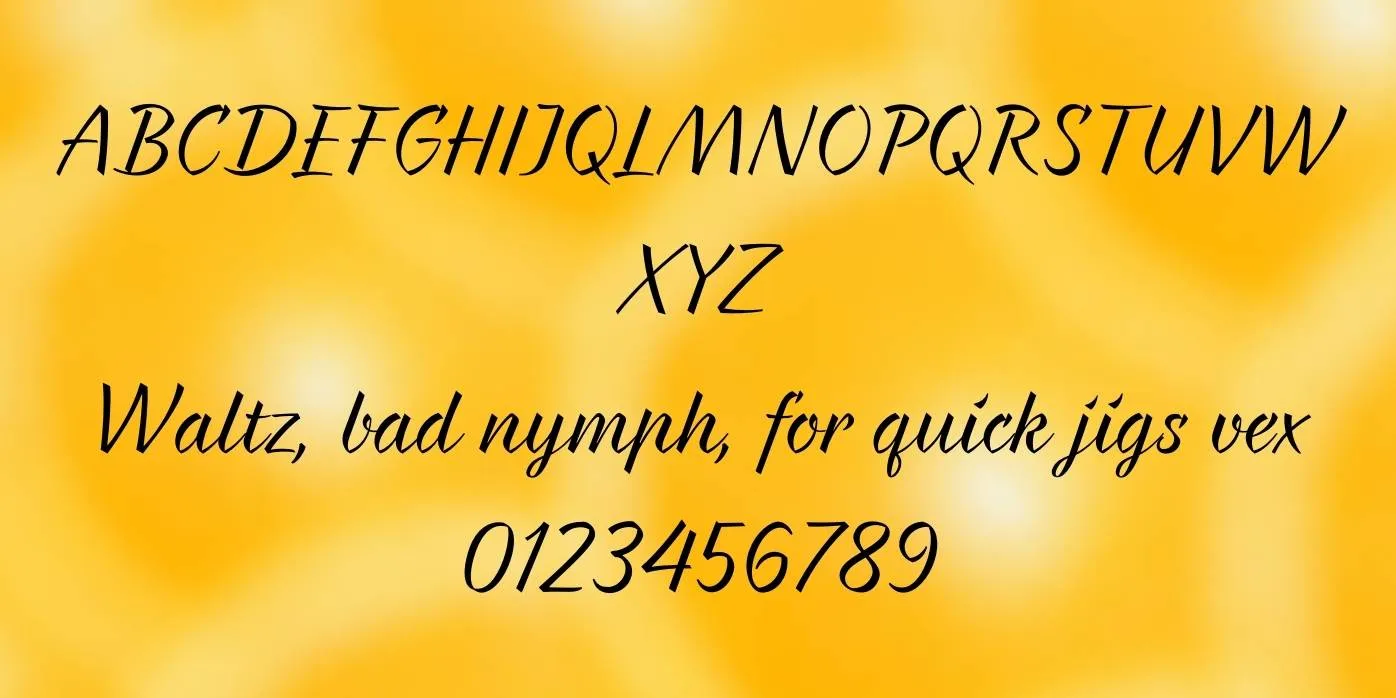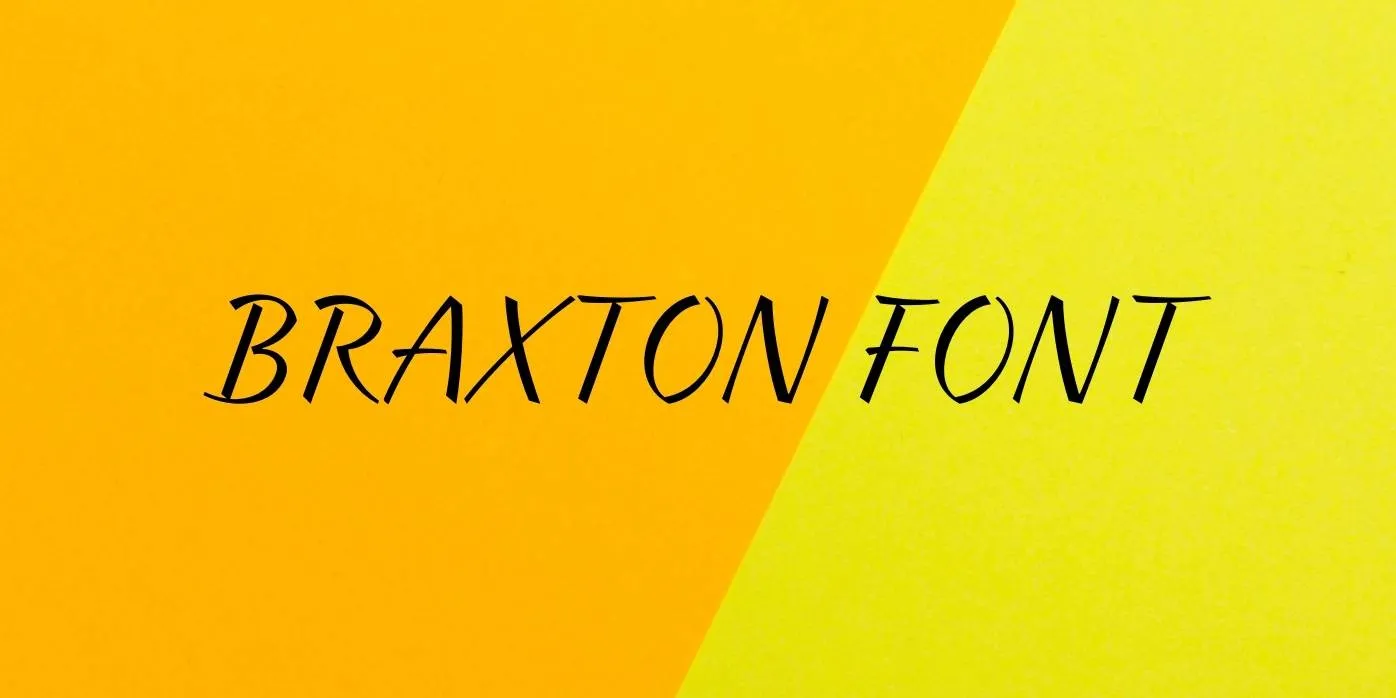
Braxton Font
The designer who presents this great-looking and fantastic Braxton Font is Evgeny Tkhorzhevsky from Russia. The typographer family who publishes this font is famously known as Font fabric font designers. This font typeface family includes Std Light, Std Regular, Std Book, Std Bold, and also Std Black which are also script typefaces. Because of these variations, it became so much popular and many people are using it in their projects whether they are personal or commercial.
The characteristics of this font are amazing which are most of its alphabets and symbols are with both thick and thin lining. Braxton has also rounded corners which gives a more humanistic nature that looks great. This typeface is with brush flavor and also script typeface and has 5 unique font weights. One of these styles is fully free because of this you can download it from here and you can enjoy the beauty of Braxton on your computer and Mac.